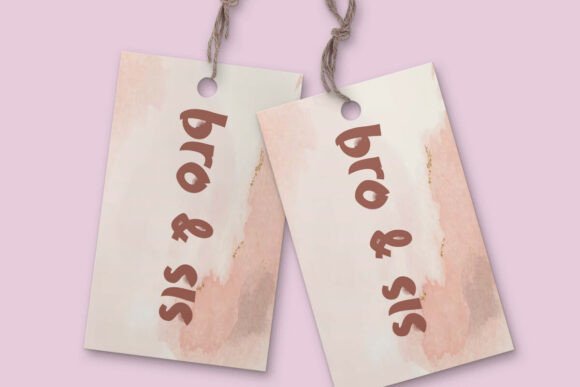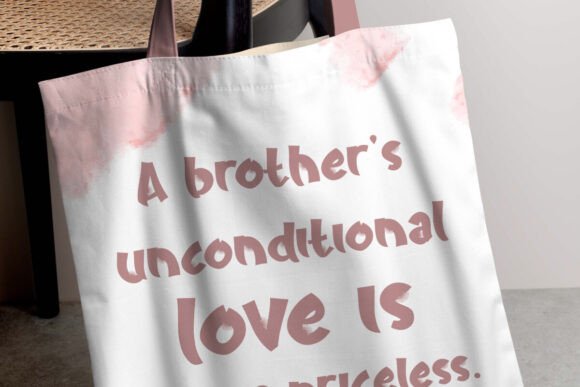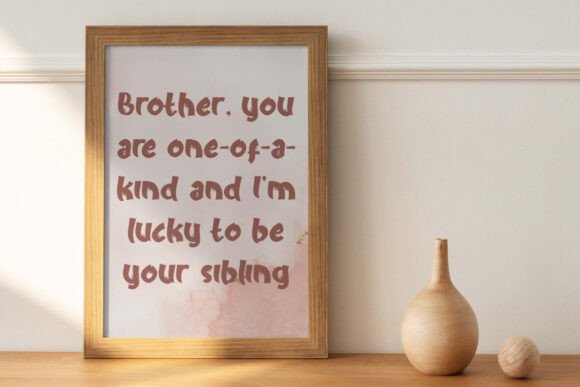
Bro & Sis Font
Bro & Sis Font is a unique Japanese brush display font with element of the letters. The impression that is highlighted is that the letters are sharp and solid with inner corners that create a blurry effect. It feels fantastic for your designs, such as apps, billboard, blogs, cover, flyer, header, logos, packaging design, poster, price label, screen print, signage, stationery, sticker, title, website, and much more.